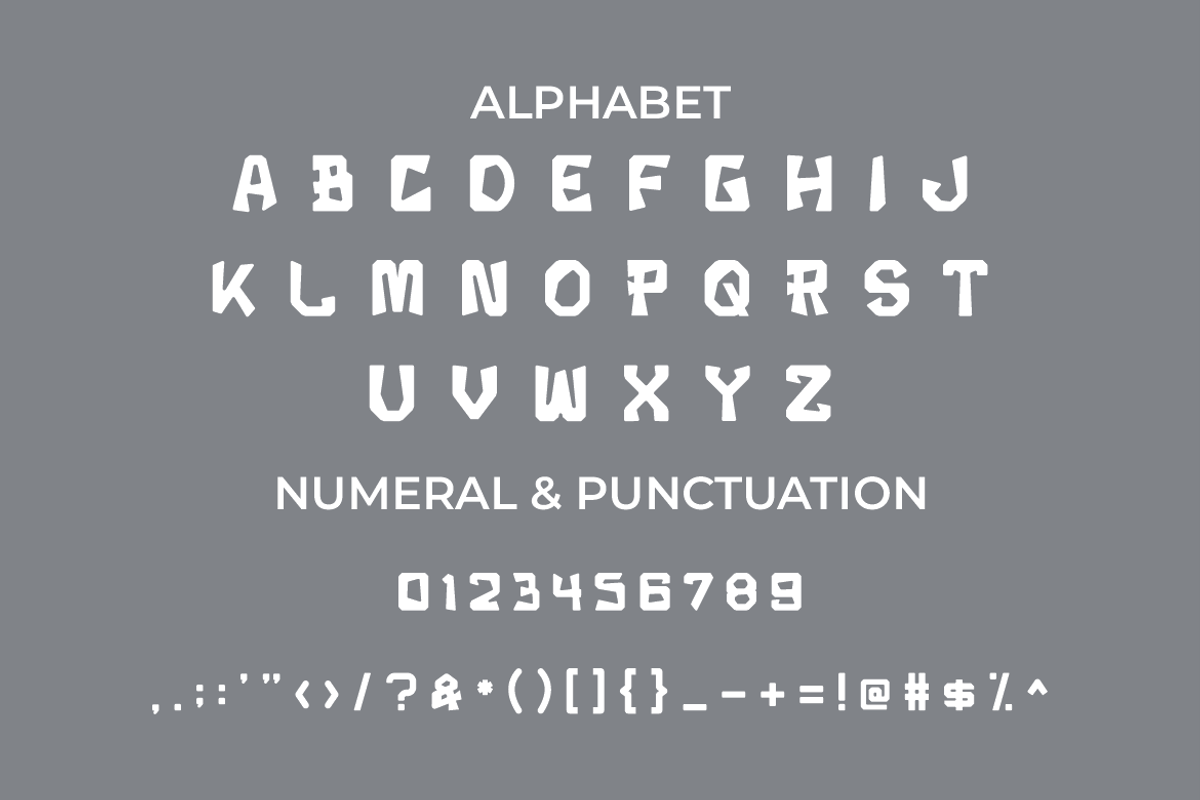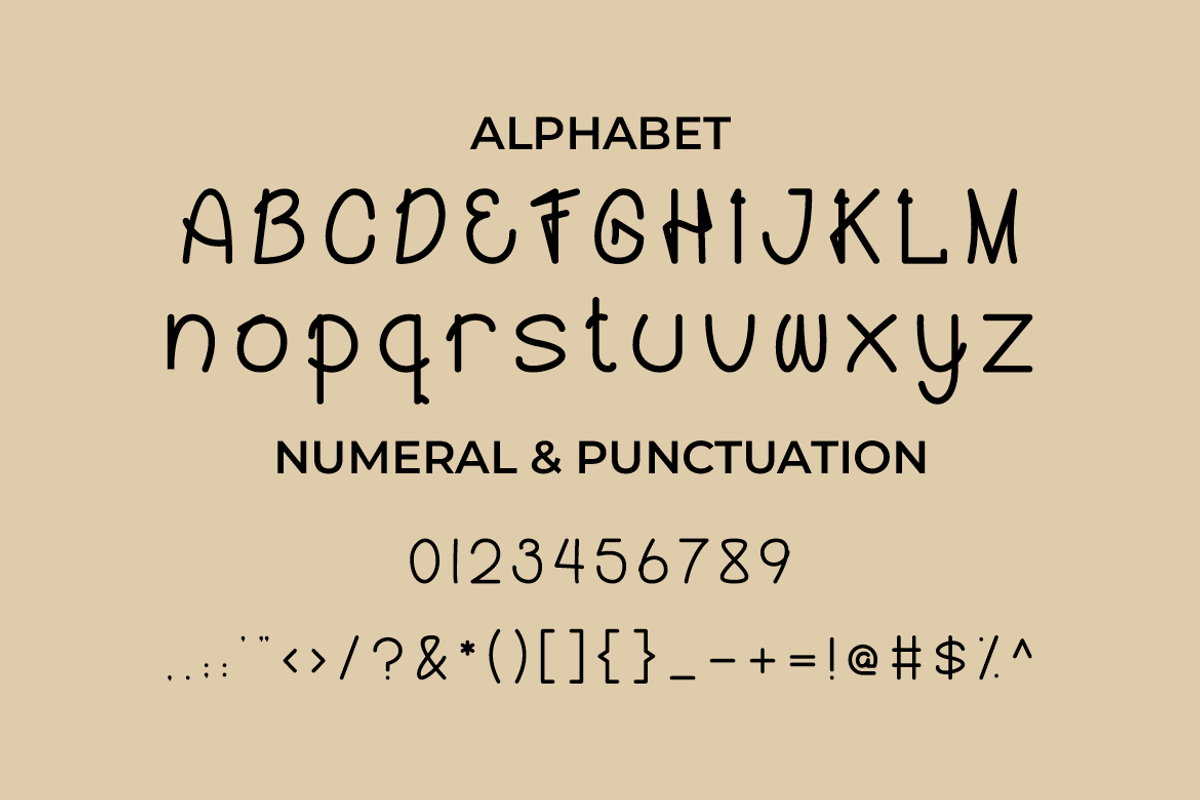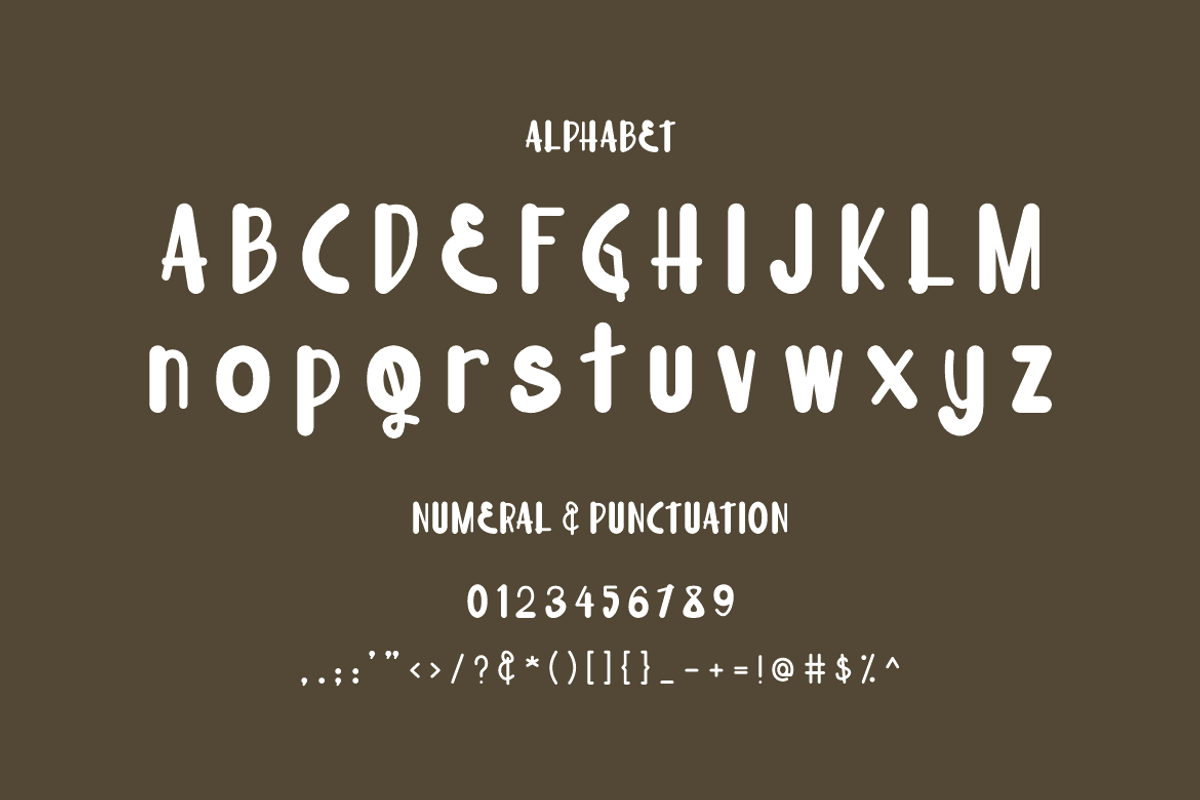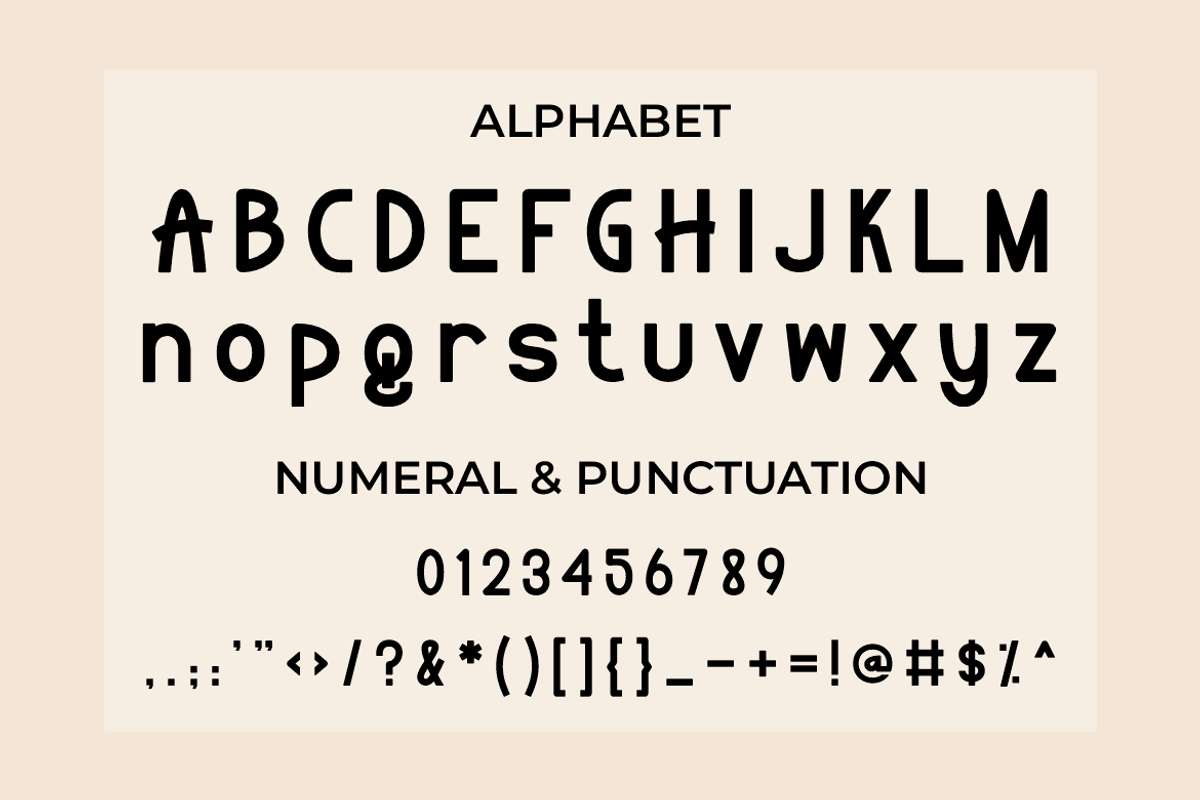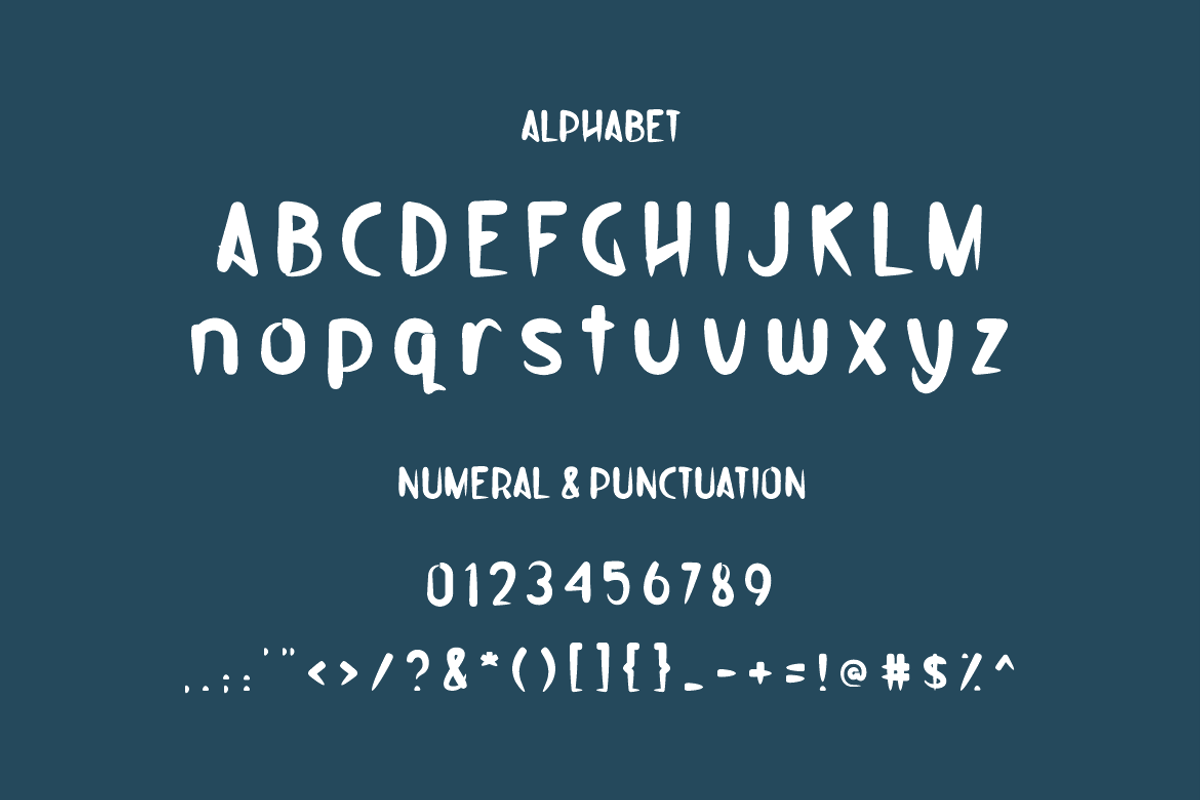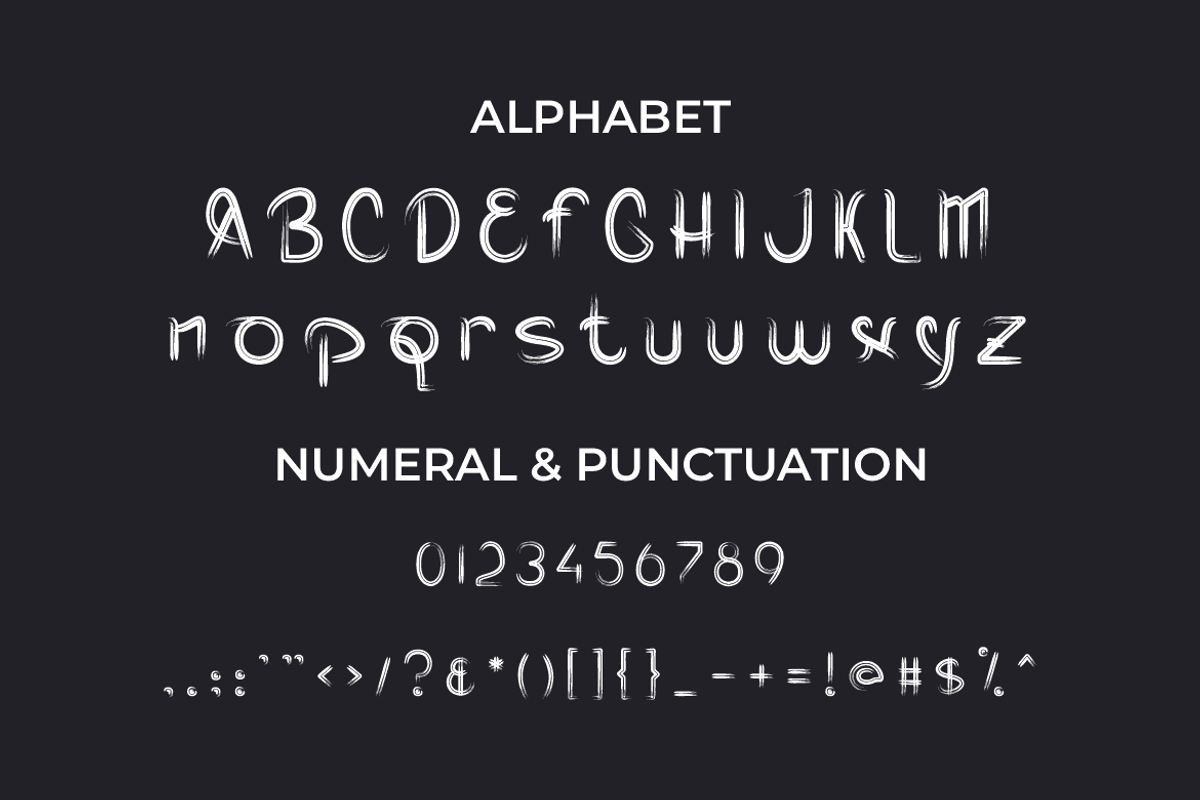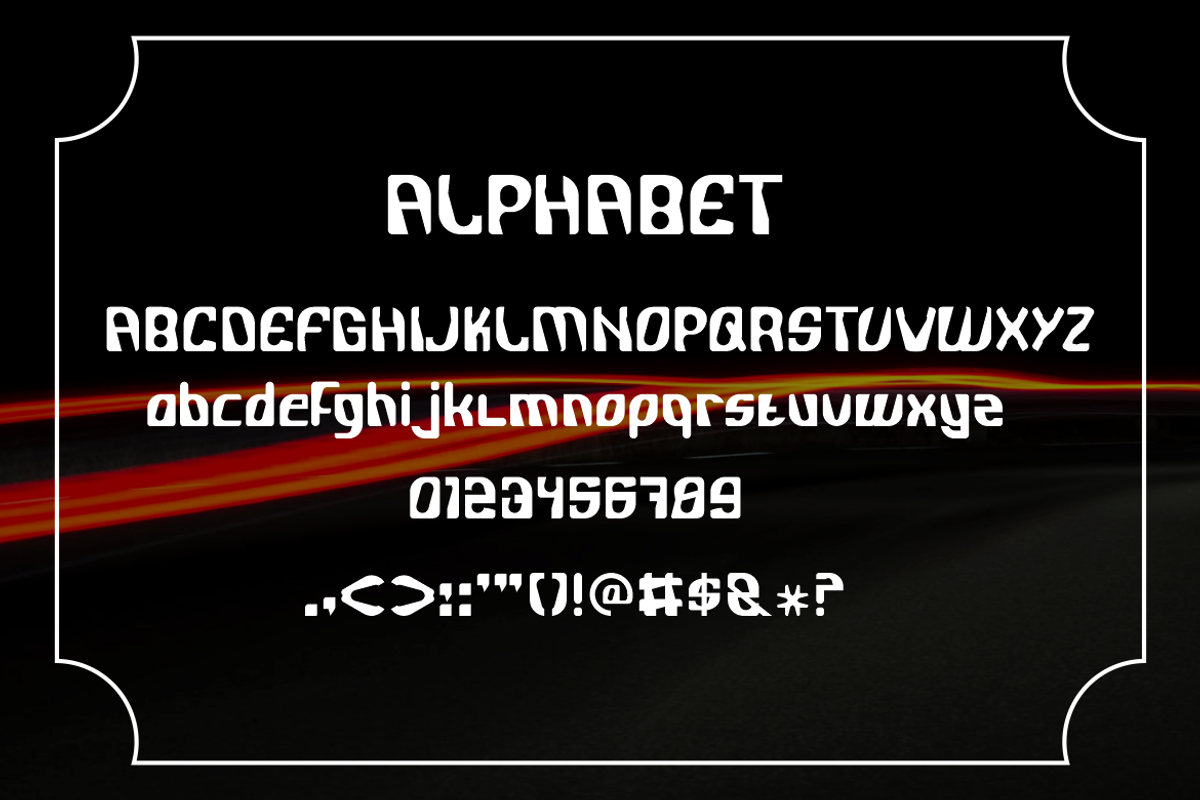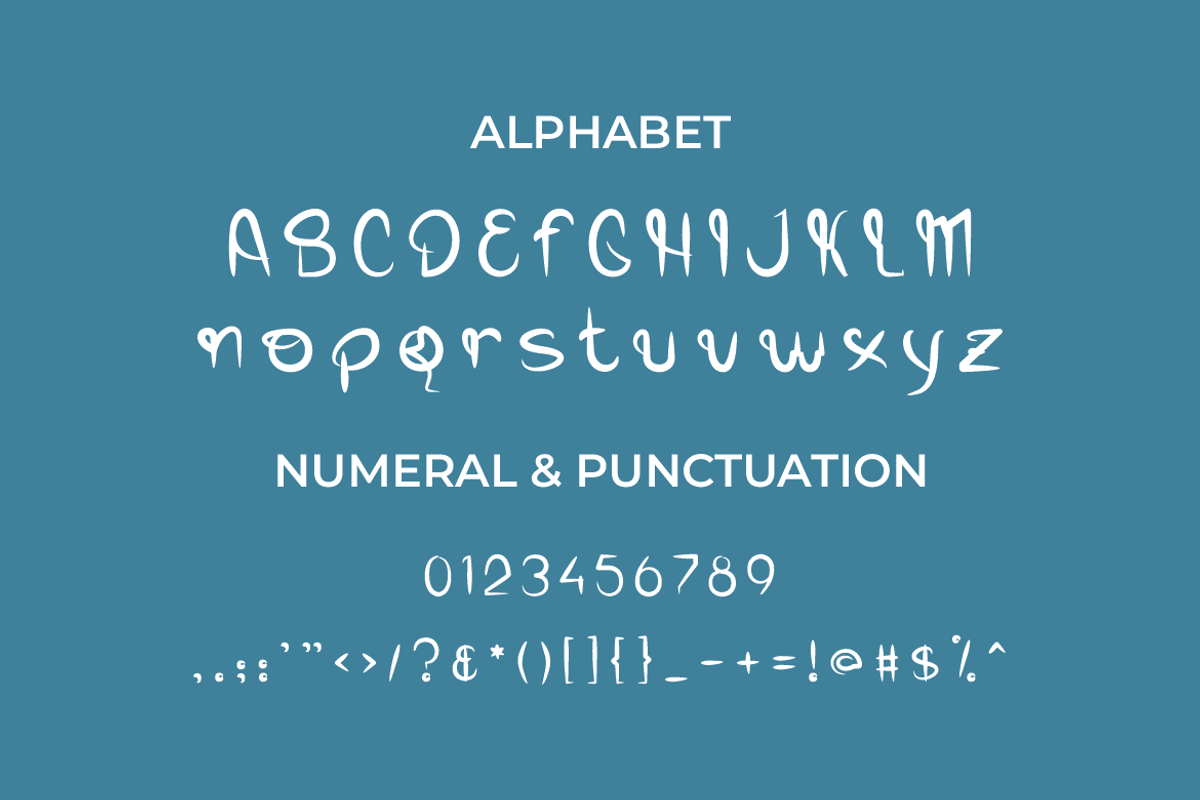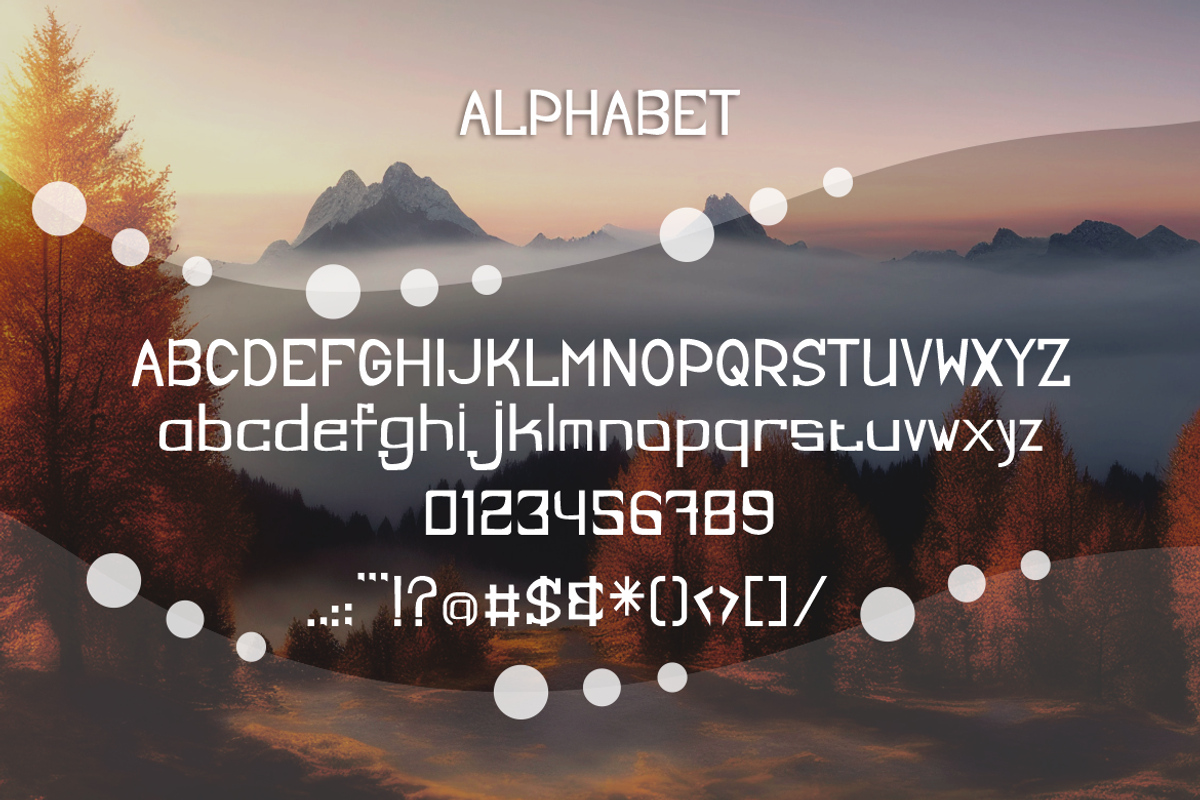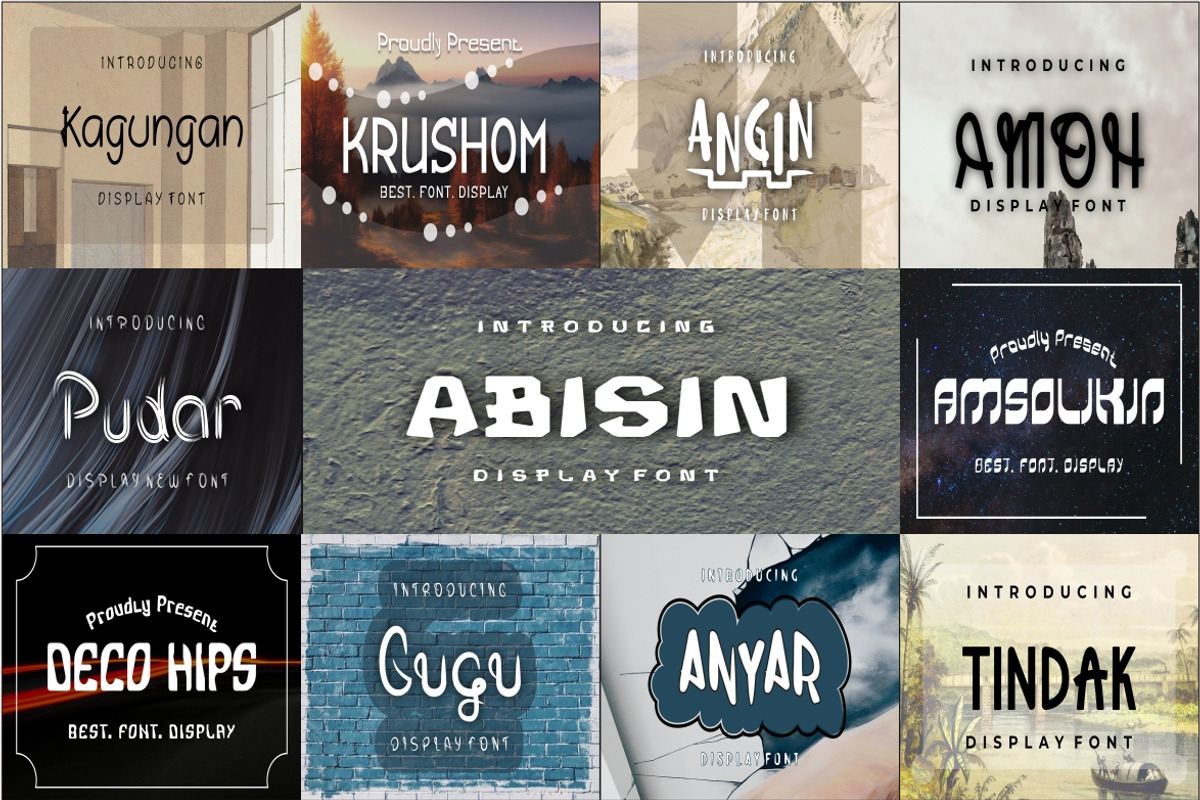
Font Bundle Modern Display
Introducing our new product Font Bundle Modern Display - Modern Font
Font Bundle Modern Display - Modern Font is a bold and authentic display font. The font is suitable for any branding project like logo, t-shirt printing, and many more. outstanding in a wide range of contexts.